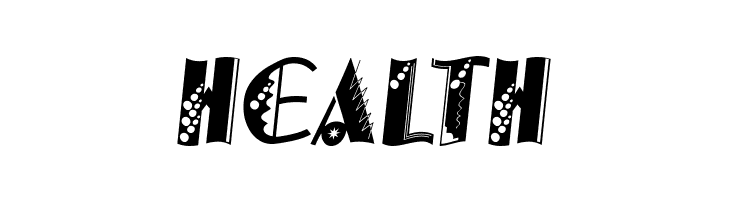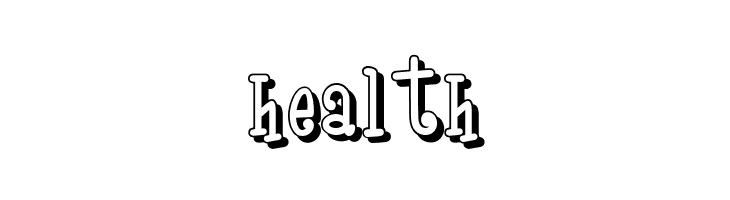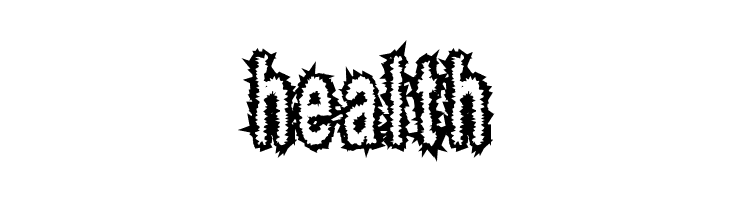
A bold, star-patterned decorative font with a playful and energetic style.
A bold, decorative font with tribal patterns and geometric shapes.
A playful, bold font with a shadow effect and whimsical, cartoonish style.
A bold, rugged outline font with a distressed, hand-drawn aesthetic.
A bold, retro-inspired font with dynamic cut-out patterns.
A bold, jagged font with an electric shock appearance.